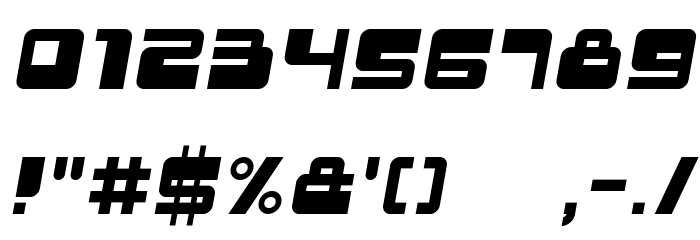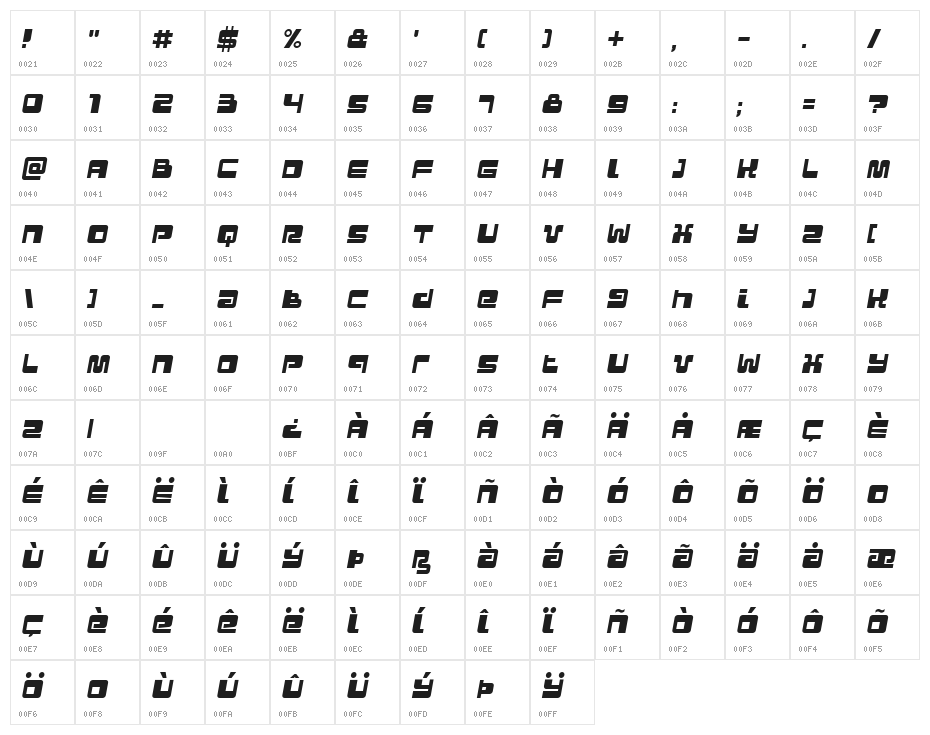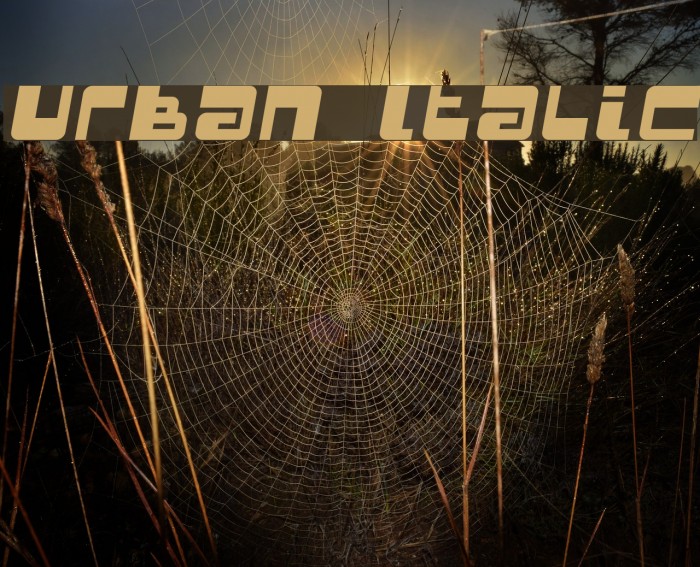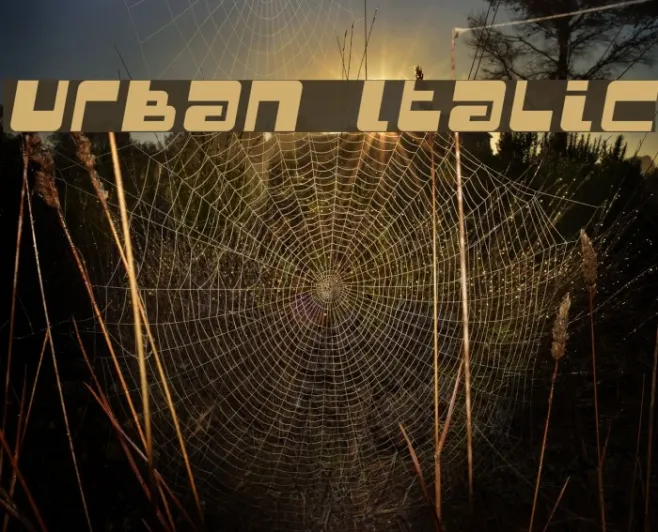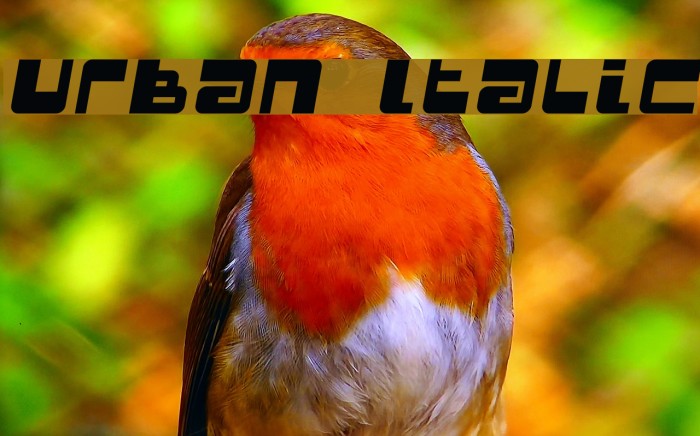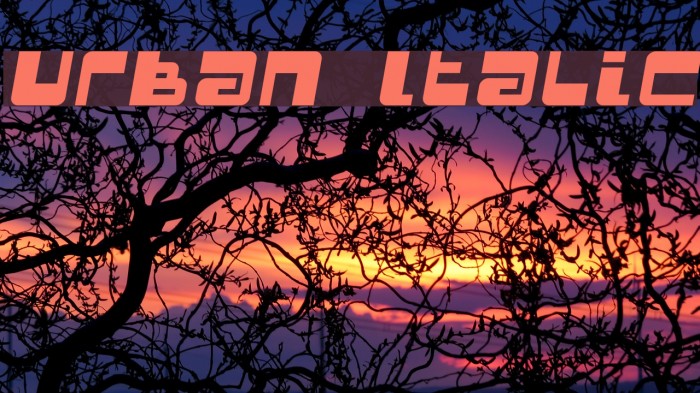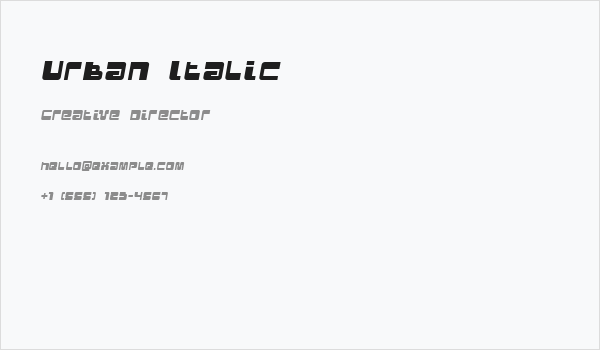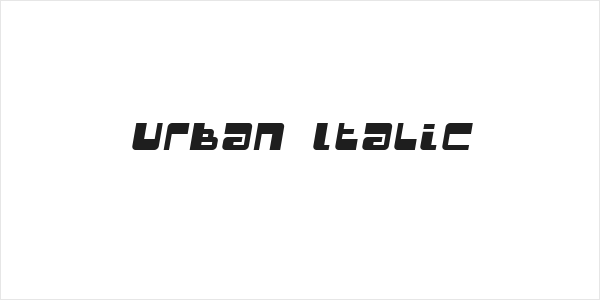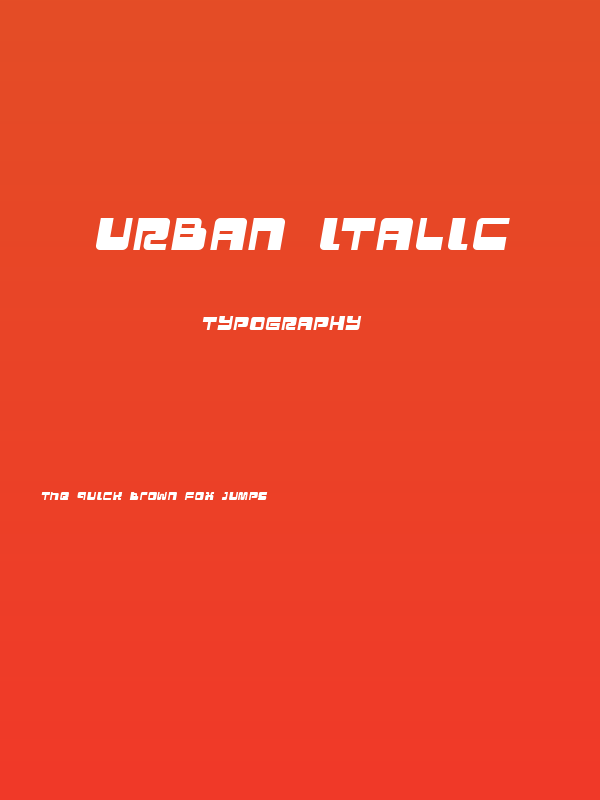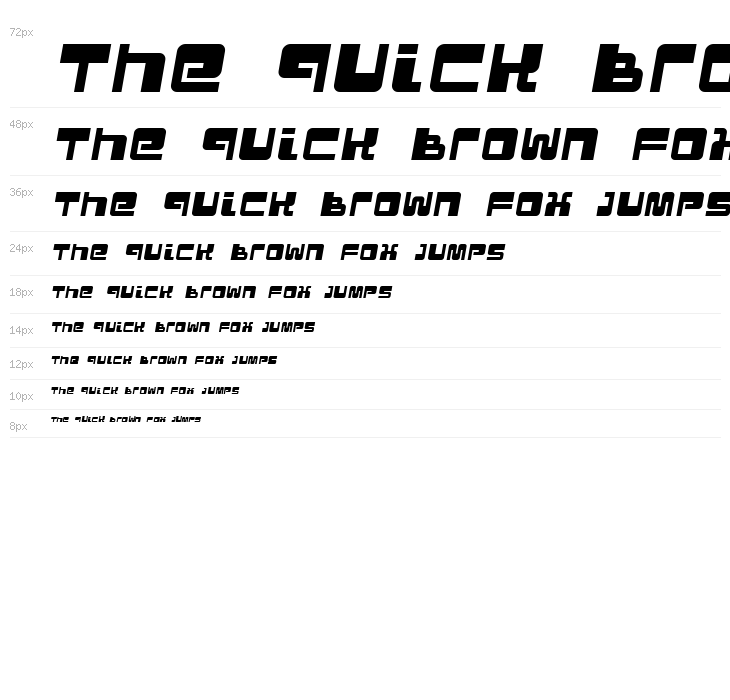
Urban Italic Font
Urban Italic Description
This font features a bold, italicized style with a modern and urban flair. The characters are designed with a forward-leaning slant, giving a sense of motion and dynamism. The strokes are thick and consistent, providing a strong visual impact. The uppercase and lowercase letters maintain a uniform width, while the numbers and special characters are crafted to match the overall aesthetic. The font's geometric shapes and sharp angles contribute to its contemporary and edgy appearance, making it suitable for projects that require a bold statement.
| Proposed Projects | Ideal for urban-themed designs, sports branding, posters, and digital media. |